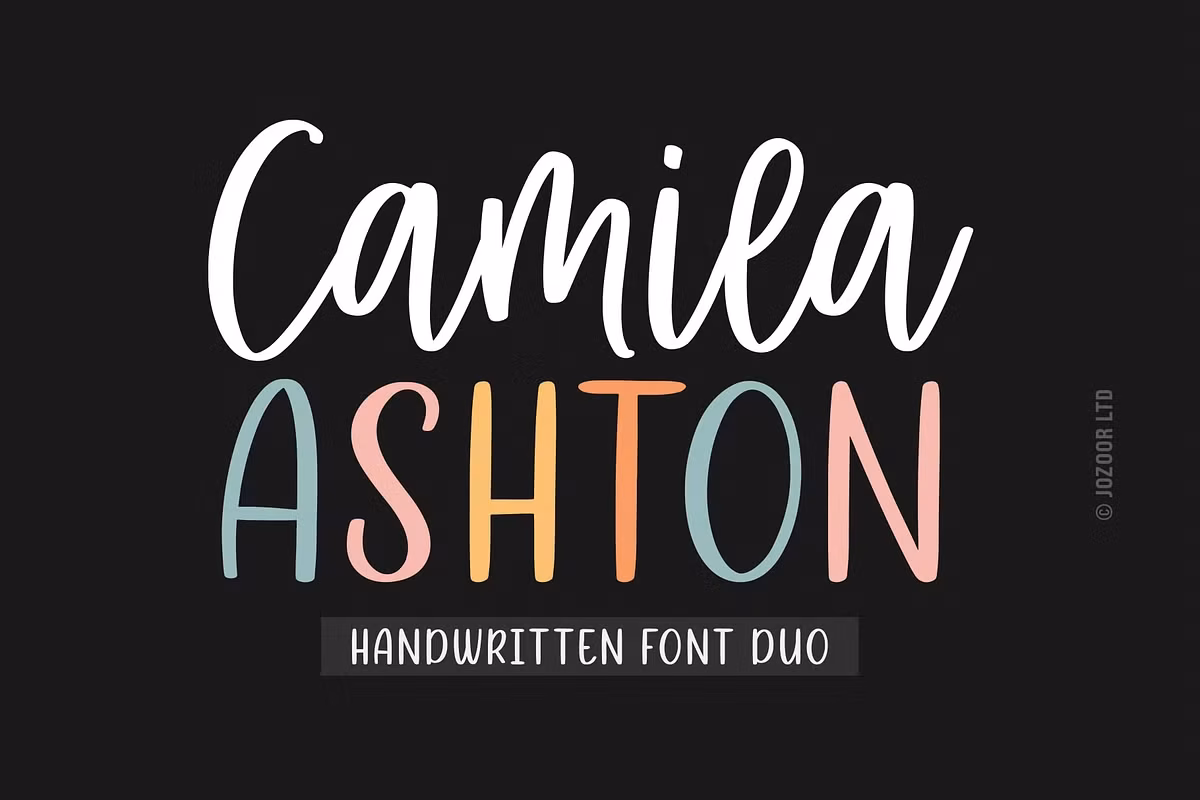
Camila Ashton - Script Font Duo Free Download
Camila Ashton Script Font Duo Free Download
Camila Ashton Script Font Duo Free Download is a stylish pairing of an elegant script and a modern sans-serif font, designed to complement each other beautifully. With its flowing letterforms and clean geometric balance, this font duo is perfect for wedding invitations, branding, social media graphics, logos, and chic stationery.
Whether you’re crafting an upscale brand identity, creating a romantic event invite, or designing modern packaging, Camila Ashton brings elegance, harmony, and a touch of personality to your typography. It’s the ideal font duo for designers who love seamless, complementary font pairings.